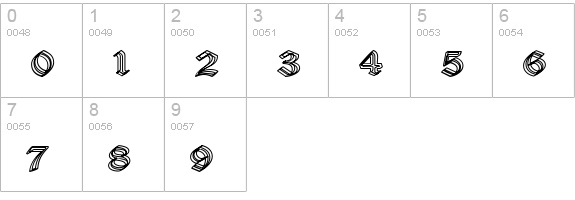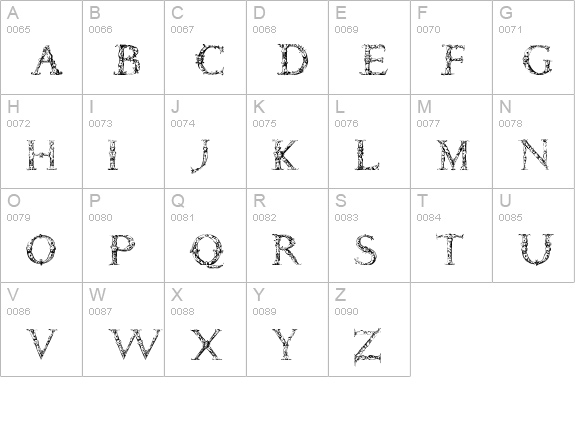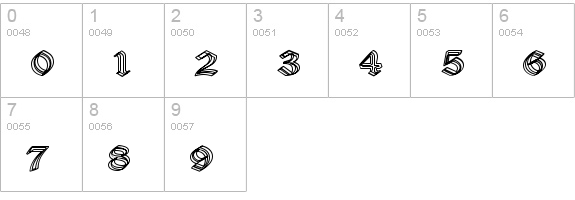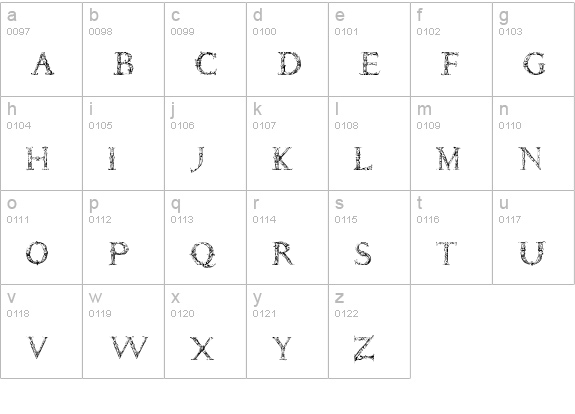
Daemonesque Font Details
Daemonesque font is a captivating and enchanting typeface that embodies a sense of mystery and allure. With its intricate and ornate letterforms, this font exudes a distinct otherworldly charm that is both elegant and mesmerizing. Each character in Daemonesque font is delicately designed, with intricate details that create a unique and ethereal appearance. The sweeping curves and graceful lines give the font a sense of movement, as if the letters themselves are dancing across the page. What sets Daemonesque font apart is not just its exquisite design, but also its versatility. It is a font that can be used for a wide range of creative projects, from logo designs and branding to invitations, posters, and beyond. Its timeless elegance and versatility make it a perfect choice for any project that requires a touch of sophistication and enchantment. One of the best features of Daemonesque font is that it is available for free. Yes, you read that right! This captivating font can be freely downloaded at FontsMarket.com, a trusted source for high-quality fonts. Whether you are a designer, artist, or simply someone who appreciates the beauty of typography, Daemonesque font is a must-have in your collection. So, what are you waiting for? Download Daemonesque font today and unleash your creativity. With its mesmerizing design and its availability as a free download, this font is a true gem that will elevate your projects to new heights. Get ready to captivate and enchant your audience with Daemonesque font.